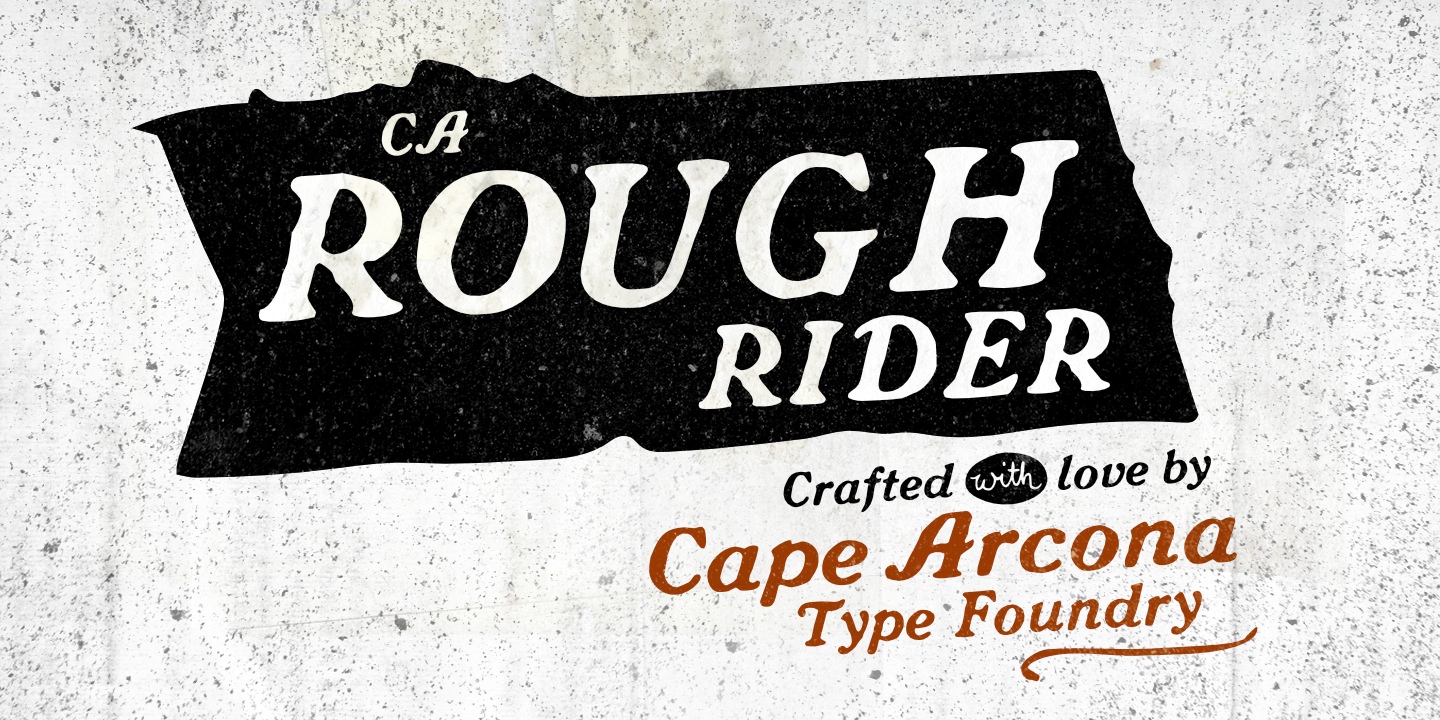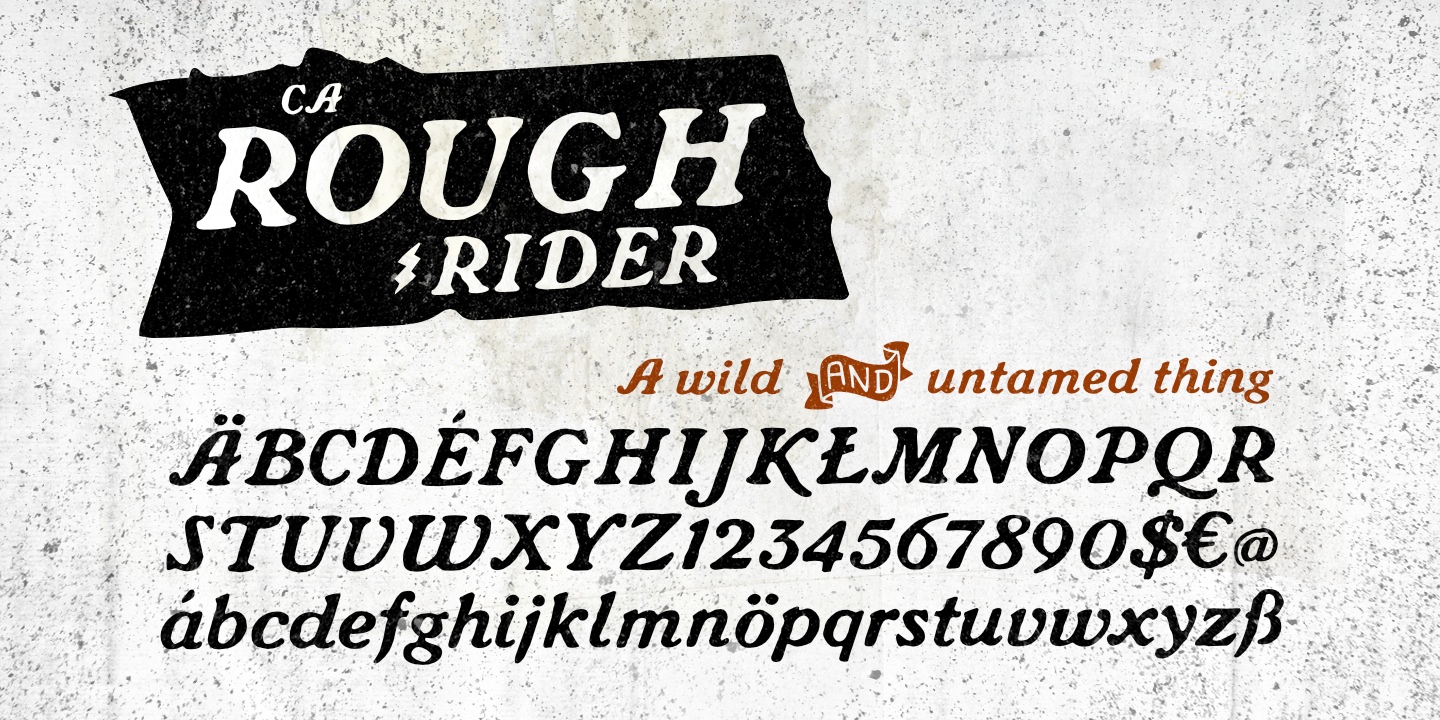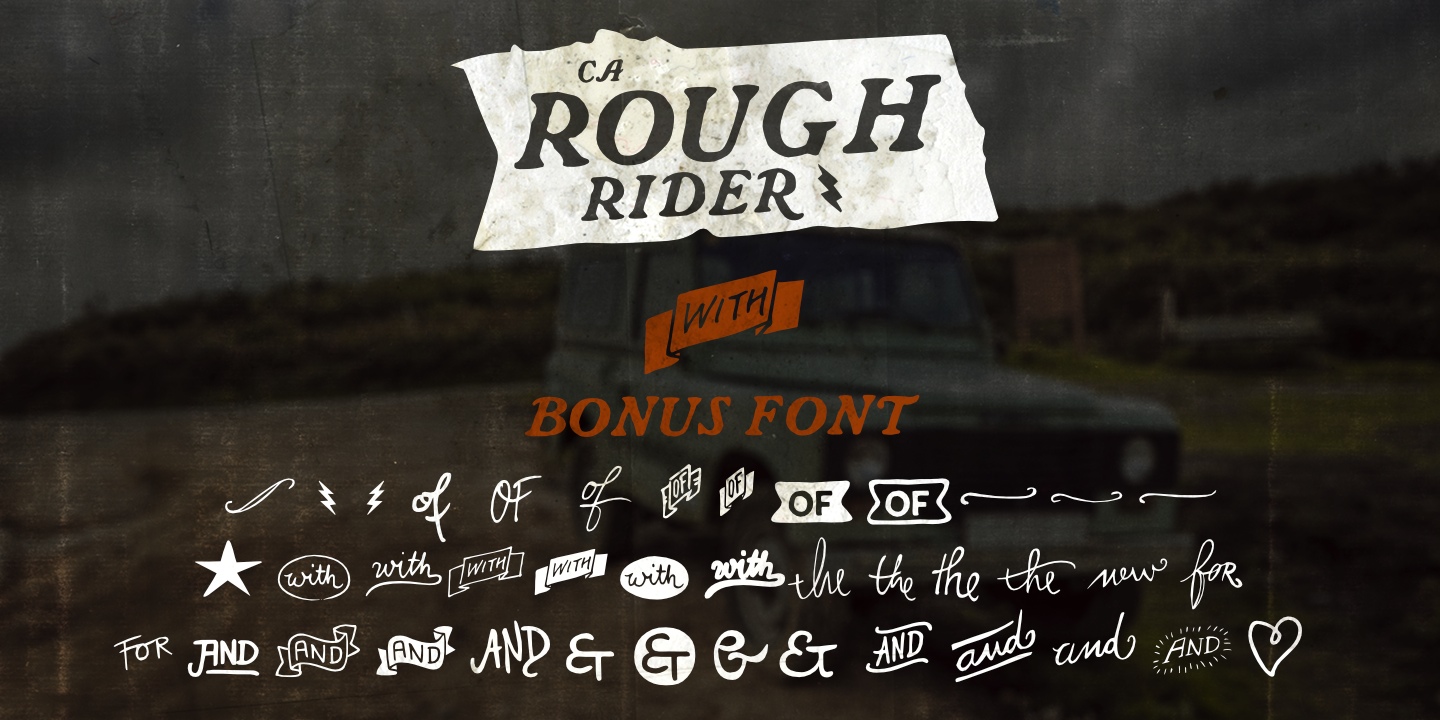
CA Rough Rider is a handcrafted, bold italic typeface with a rough, worn-in edge to it. It was built as a display style from the start – something with enough grit and personality to carry a title or a logo on its own, but it holds up fine in small text too, where the rough texture still reads clearly without getting muddy.
It actually started as a one-off, made for a single logo design. But the letterforms had enough character that it made sense to push further, so the typeface got expanded into a full set with Central European character support – turning what was a one-off logo job into something usable for full projects.